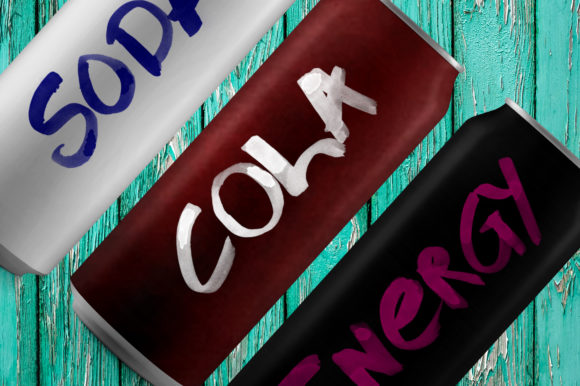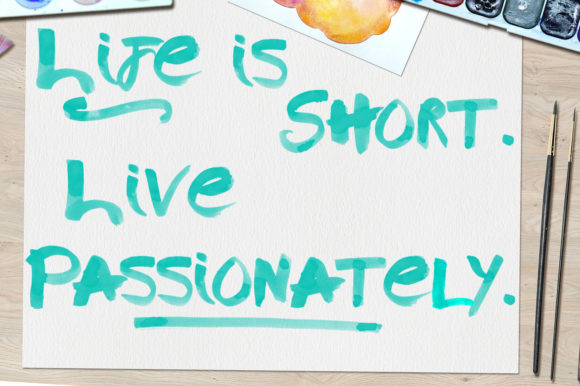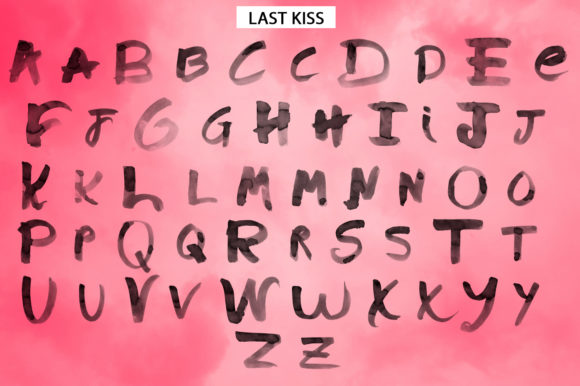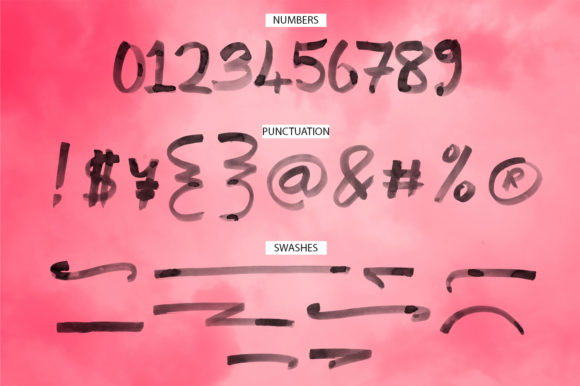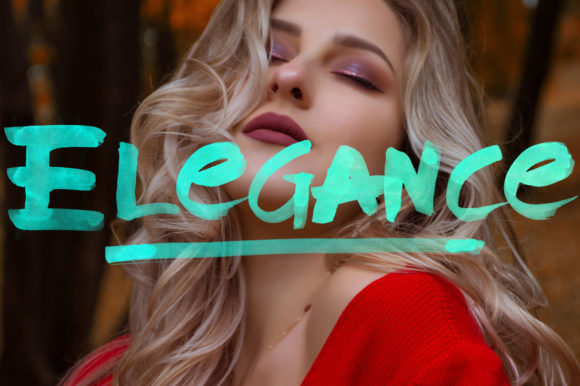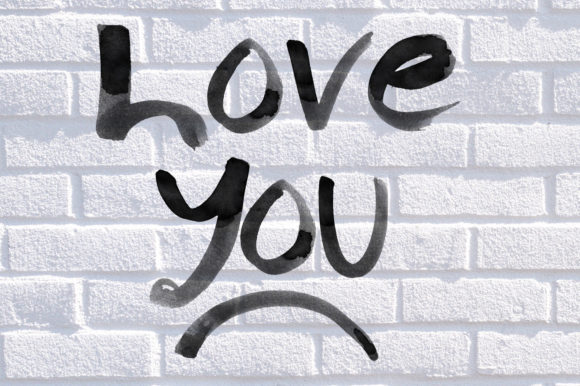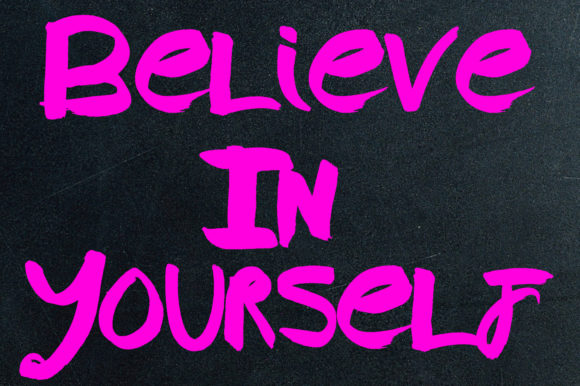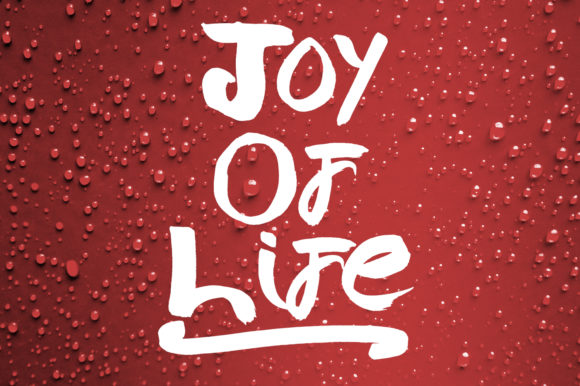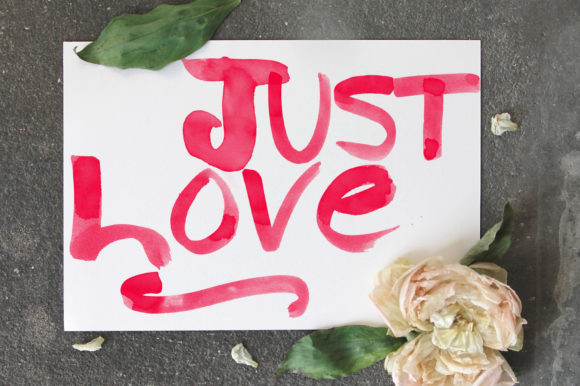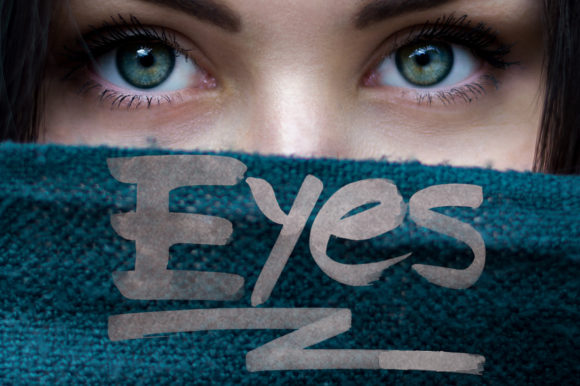
Last Kiss Font
About Last Kiss Font
Last Kiss is a strong and raw script font with an experimental edge. It will add that unique flavor to any design idea!